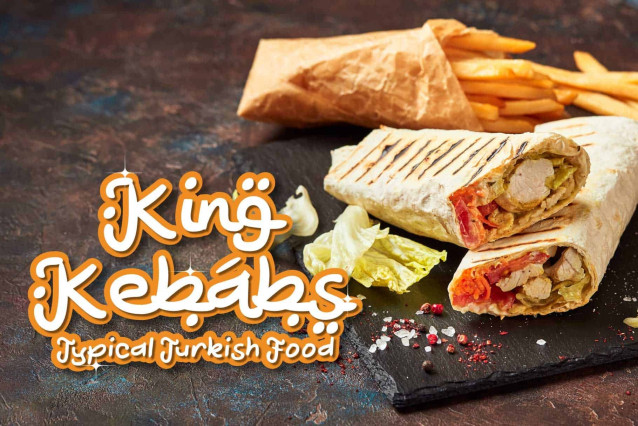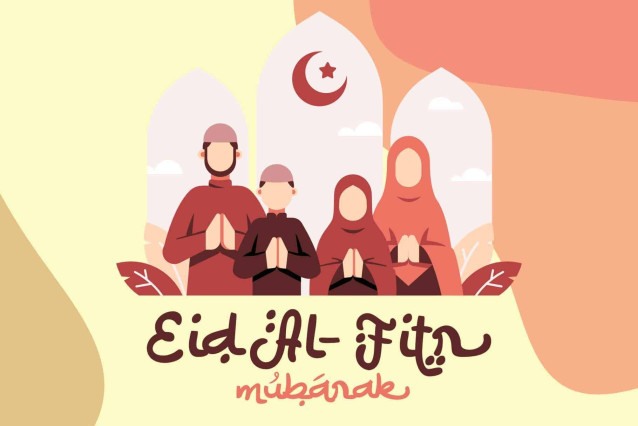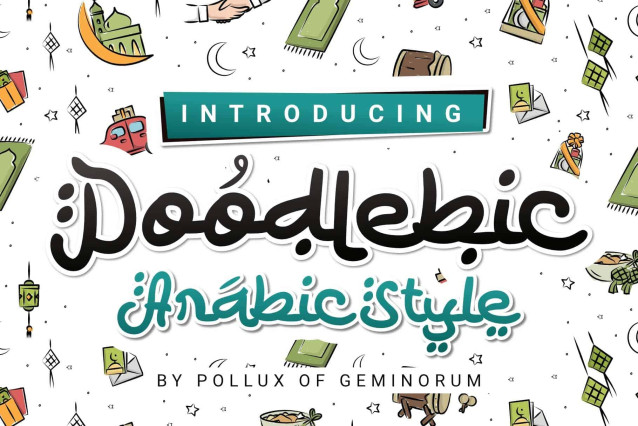
Doodlebic Font
Doodlebic Font is an arab faux typeface with fun typeface, this font is suitable for any islamic or Middle East content. Perfect for logo, branding, book cover, apps, kids product, poster, banner, flyer, video, TVC, etc. It has Open Type features so you have many style optionsthat you can access them from designing software with open type panel on graphics software such as Illustrator or Photoshop